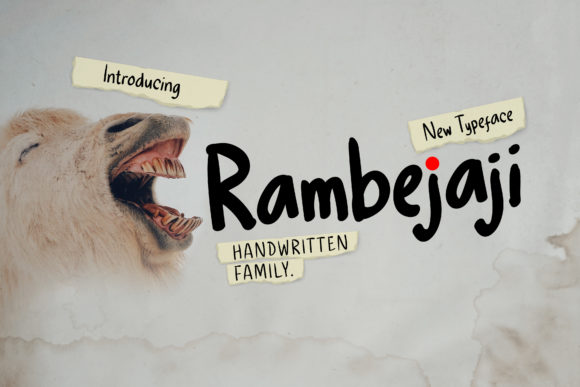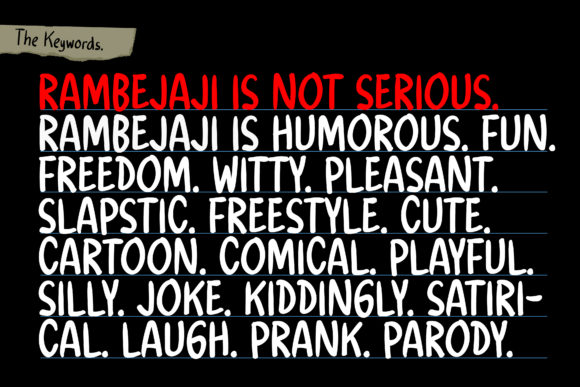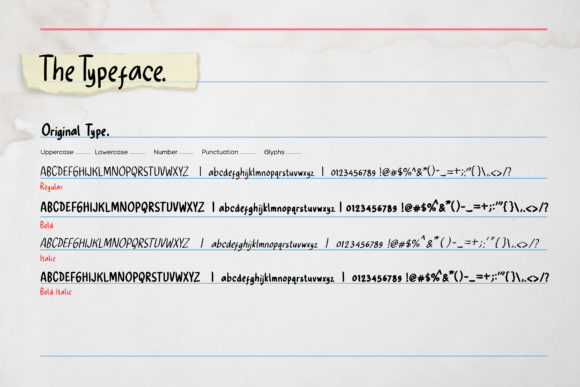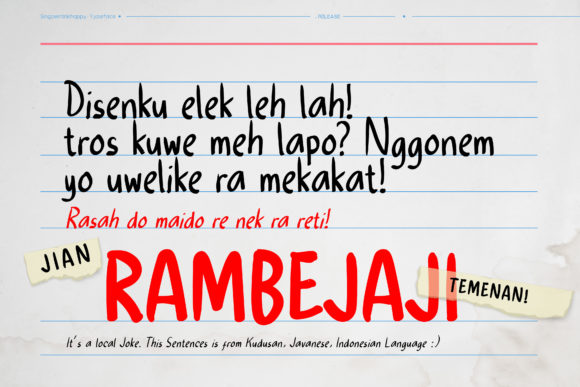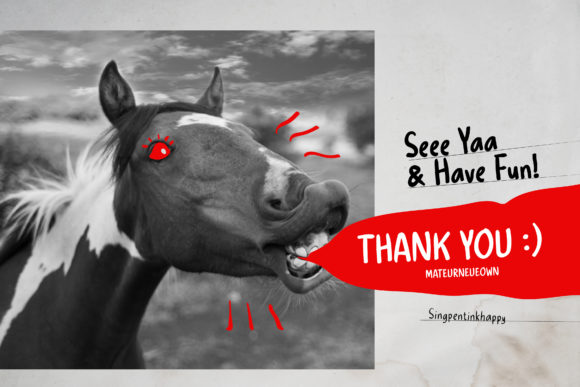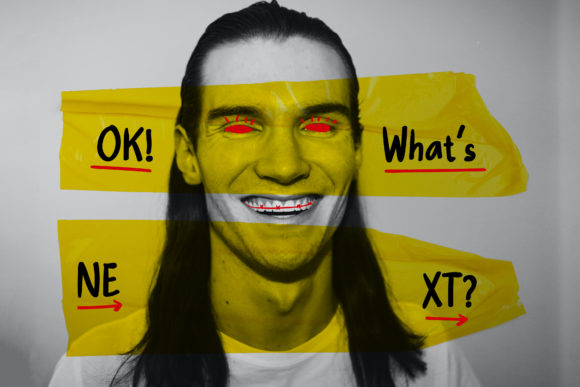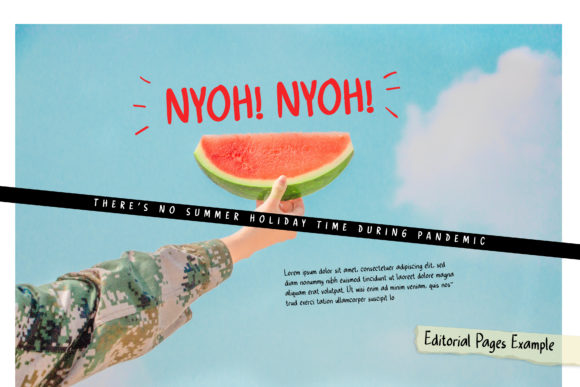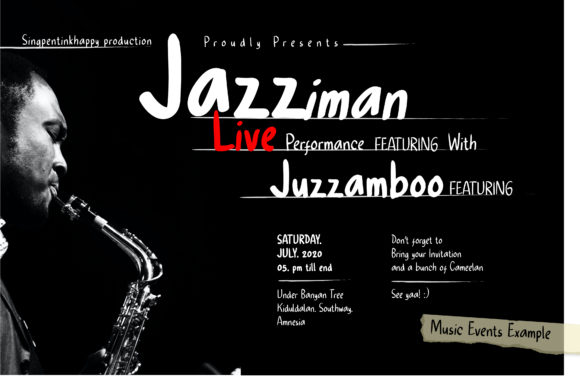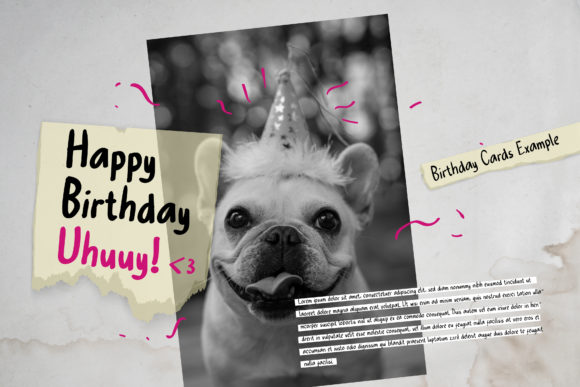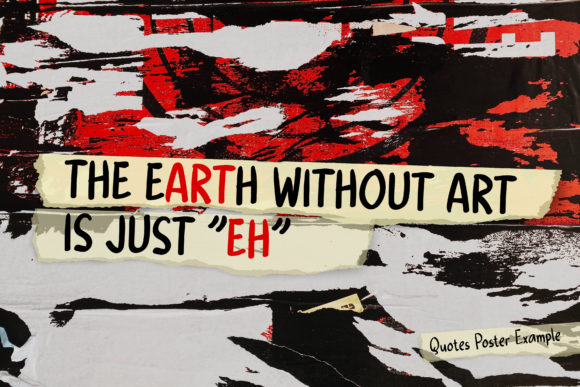
Rambejaji Font
About Rambejaji Font
Rambejaji results out of a stunning pairing of a brush pen and pencil that makes it look incredibly endearing and authentic. Use this gorgeous and unique handwritten font to bring any DIY project to life!